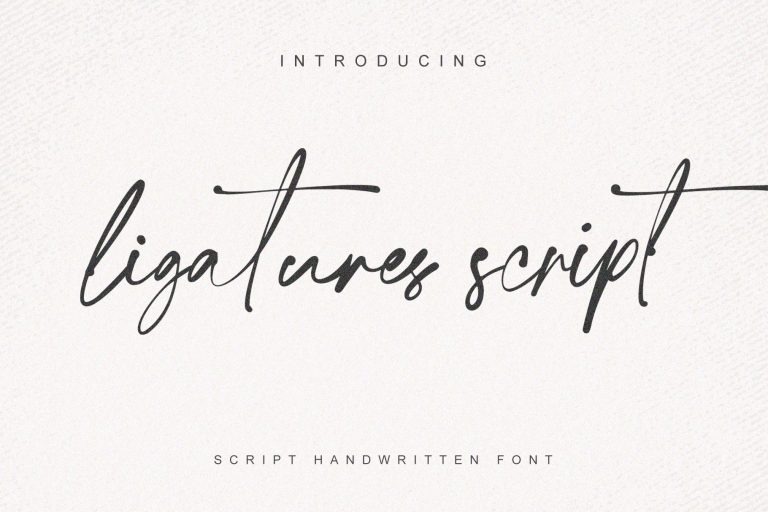
Brother Brush Font
When you think everything is stagnant, here comes. This is New font brushed very interesting, perfect for your various projects. Introducing Brother Font. Brother – Handwritten Font is a script font with a brush and classy style, this font is great for your next creative projects such as watermark on photography, , album cover, business card, and many other design project.Brother font is here to elevate your work to the highest level.